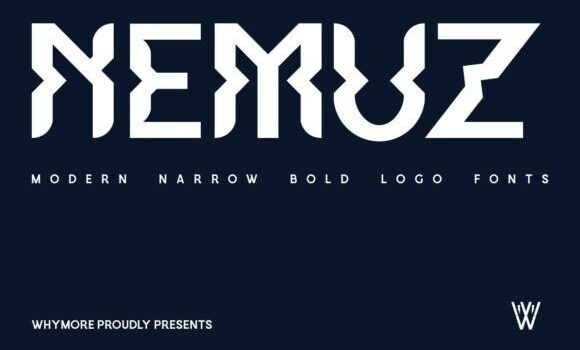
nemuz
Nemuz Font – Free Download Introduction to Nemuz Font Define the future of your brand with the Nemuz font, an avant-garde modern narrow bold typeface designed for high-tech logos and futuristic identities. 📸 Preview Gallery 6 images 📌 Product Name